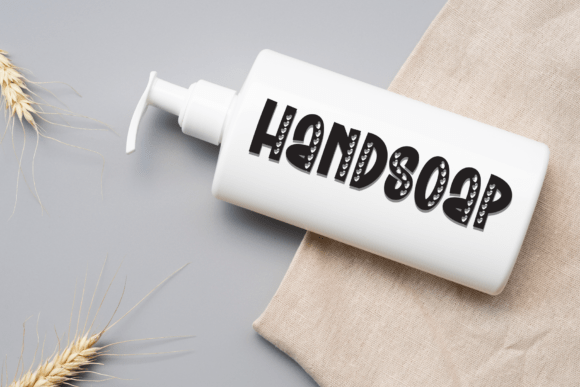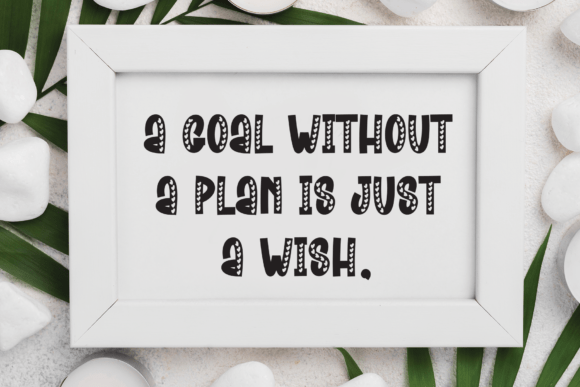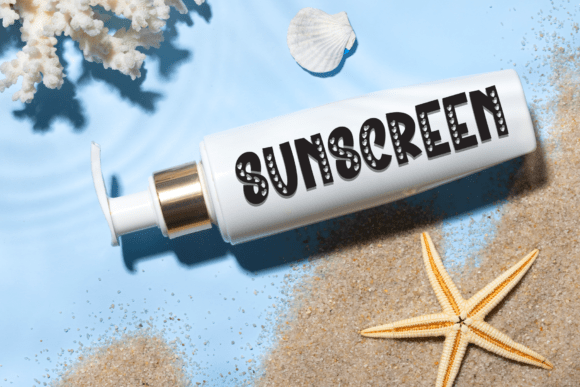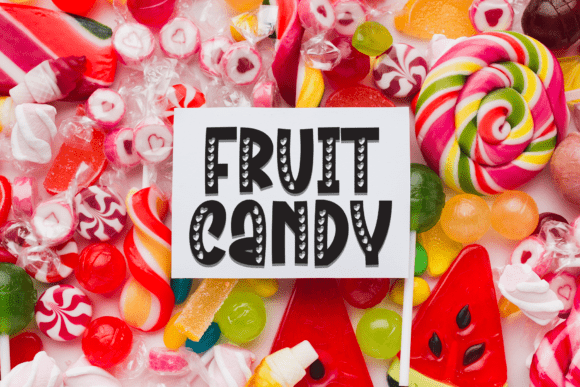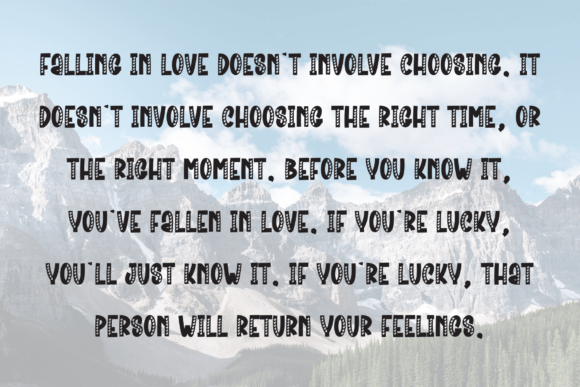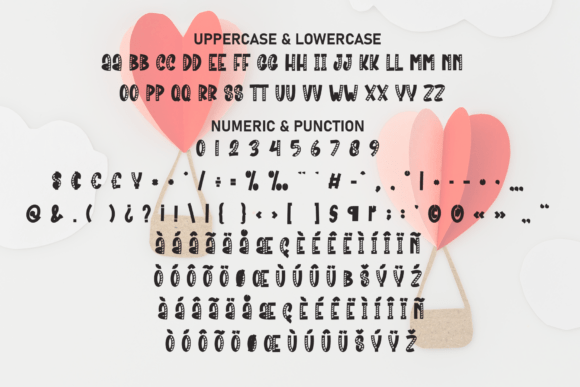
Introduction to Love Bombing Font
Enter the Love Bombing Font, a charming display font that embodies the carefree spirit of creativity. Its bold, approachable letterforms are designed to bring a relaxed and playful vibe to any project, making it perfect for headlines, posters, and branding. Whether you’re working on a free download or a high-quality design resource, the Love Bombing Font is sure to be a valuable addition to your design arsenal.
Key Features of Love Bombing Font
- High-quality, unique design with a transparent background, ideal for creative projects.
- Perfect for designers and artists looking for a distinctive font to add a touch of personality to their work.
- Unique characteristics include a bold, playful feel and a wide range of customizable options.
- Great for use in social media graphics, logos, and other design elements where a creative, eye-catching font is needed.
Honest Review: Love Bombing Font
As a designer, I’m always on the lookout for high-quality design resources to elevate my creative projects. Recently, I came across the Love Bombing Font, and I’m excited to share my honest review with you.
- Unique and playful design aesthetic that’s perfect for Valentine’s Day or any romantic-themed project.
- High-quality font files that are clear and easy to read.
One limitation I noticed is that the font is only available in a few weights and styles, which might limit its versatility for more complex design projects.
Overall, I’m impressed with the Love Bombing Font’s unique design and high-quality files. While it may have some limitations, it’s a great addition to any designer’s toolkit, especially for romantic-themed projects. With its free download option and transparent background, it’s definitely worth considering for your next creative project.
The Love Bombing Font is ideal for romantic designs, such as Valentine’s Day cards and wedding invitations. It’s also great for creating playful and whimsical designs, such as children’s birthday invitations and party decorations.